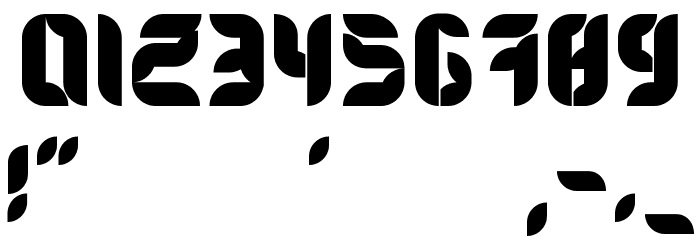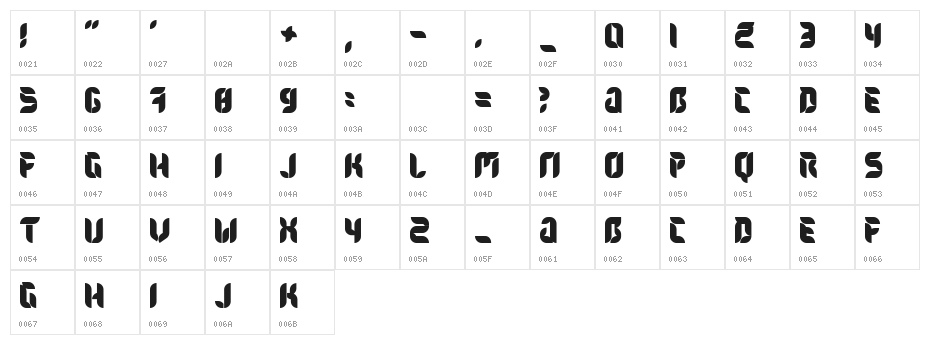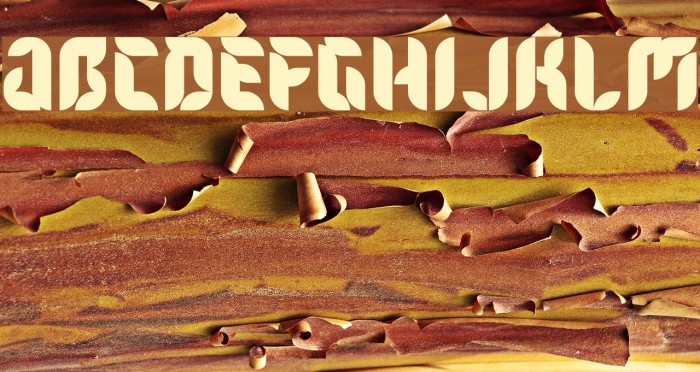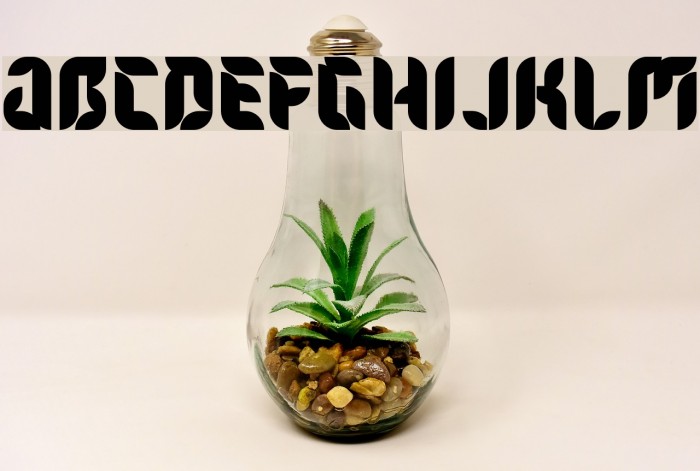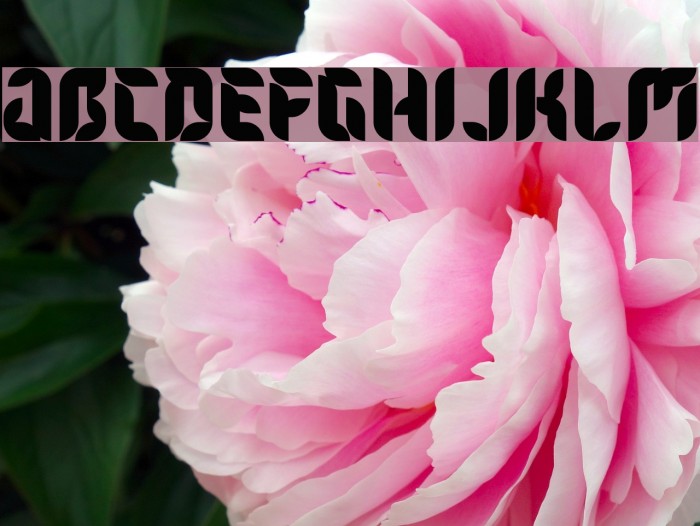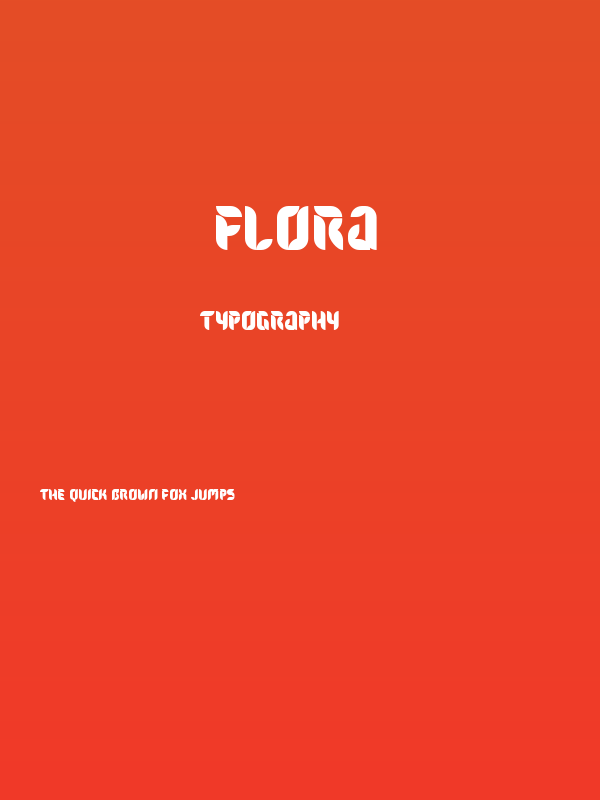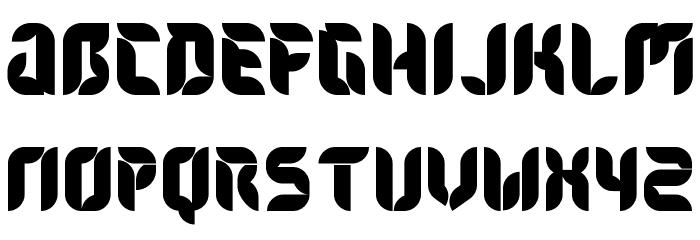
Flora Font
This font features a bold and modern design with a unique geometric style. The characters are composed of thick, rounded shapes with distinct cutouts, creating a futuristic and abstract appearance. The uppercase and lowercase letters maintain a consistent width, contributing to a uniform look across the typeface. The numbers and special characters follow the same design principles, ensuring cohesion throughout. This font's striking visual impact makes it ideal for attention-grabbing designs.
| Proposed Projects | Ideal for branding, posters, and digital artwork where a modern and bold statement is needed. |